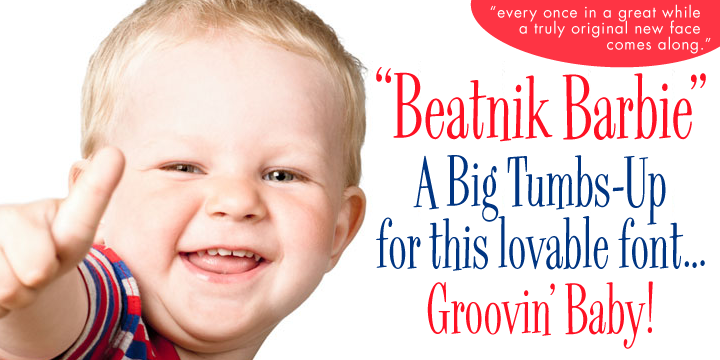
Add a playful retro twist to your designs with Beatnik Barbie Font Free Download! This charming 1960s-inspired typeface captures the fun, free-spirited aesthetic of vintage surf culture and Barbie nostalgia. Perfect for branding, packaging, social media, and any project needing a touch of nostalgic flair.
Why Designers Love Beatnik Barbie Font
Beatnik Barbie Font Free Download brings:
Authentic retro curves and swashes
Playful yet readable character set
Perfect balance of vintage and modern appeal
Multiple alternates for custom looks
Beatnik Barbie Font Free Download Features:
Complete uppercase and lowercase letters
Numbers and basic punctuation
Stylish alternates and ligatures
Best Uses for This Groovy Font:
Retro branding & logos
Vintage-style packaging
Social media graphics
Merchandise designs
60s/70s themed projects
Pro Tip: Pair with psychedelic colors and retro patterns for maximum impact!